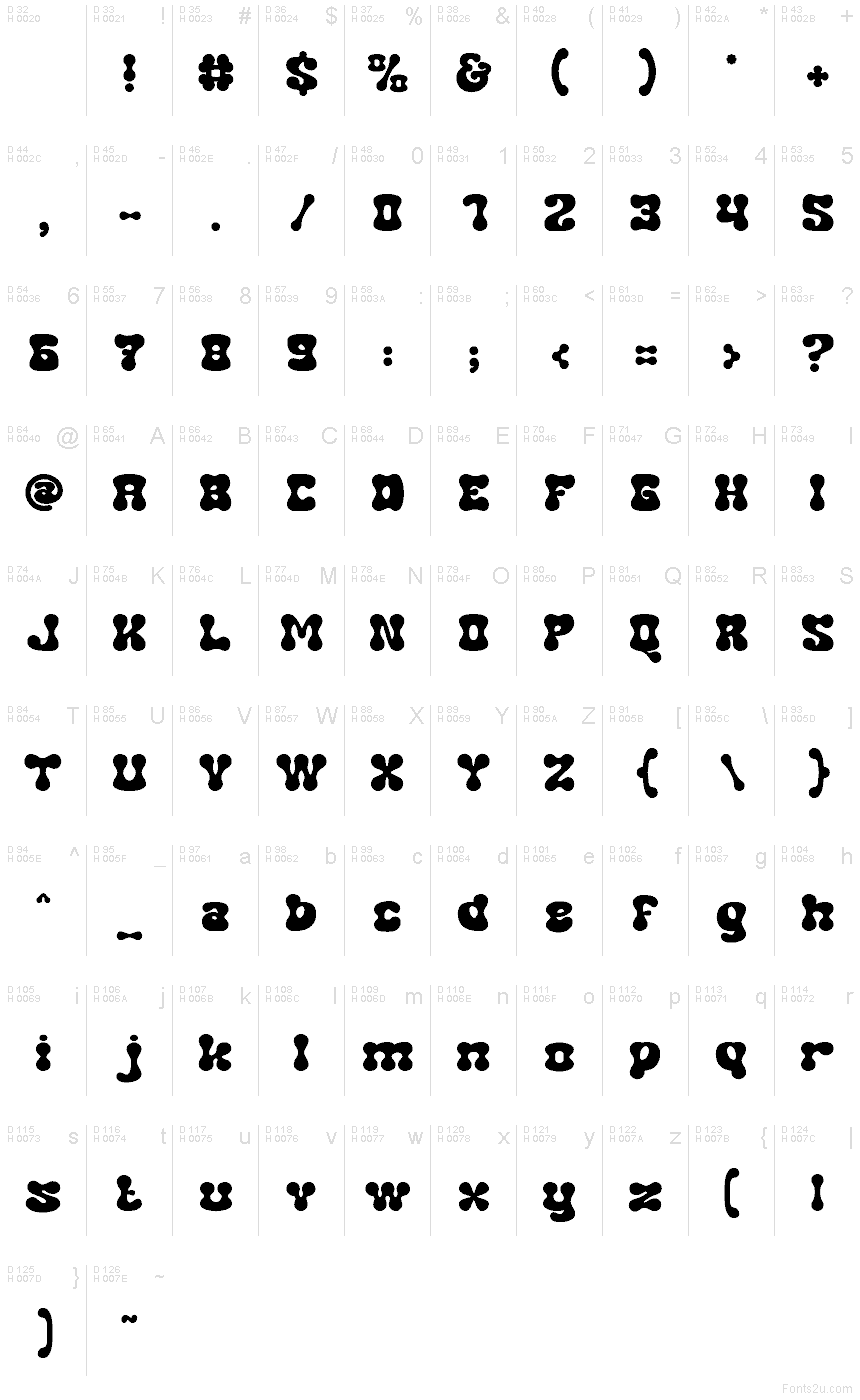
Funky Sign
Funky Sign font from PutraCetol Studio embodies whimsical lettering with fluid shapes to bring a retro-inspired groovy vibe. Rounded letters with organic forms add an energetic aesthetic to the expanded display letters. Rely on the inflexible tone of this bold sans serif font built for the other unusual message.
Applications for Funky Sign mainly include posters, headlines, banners, logos, title pages, and magazine covers. Newspaper cover design and film titles would also benefit from its letterstyle made specifically for display styles in digital or printed projects.